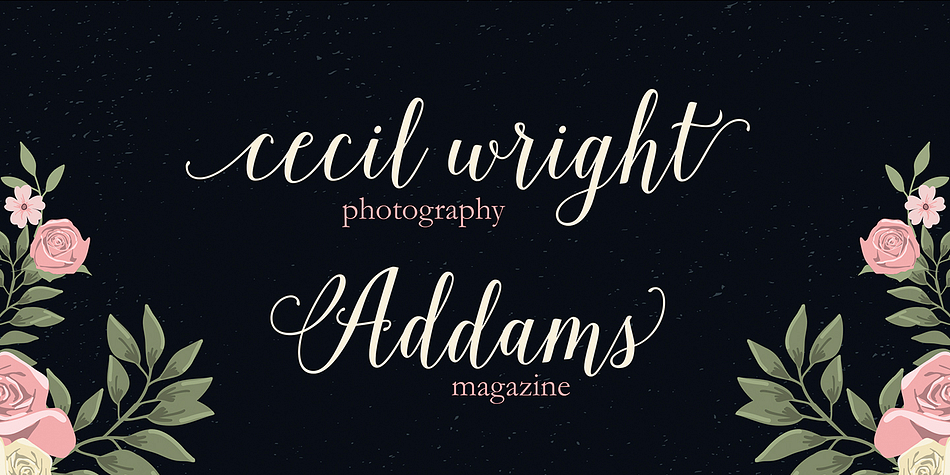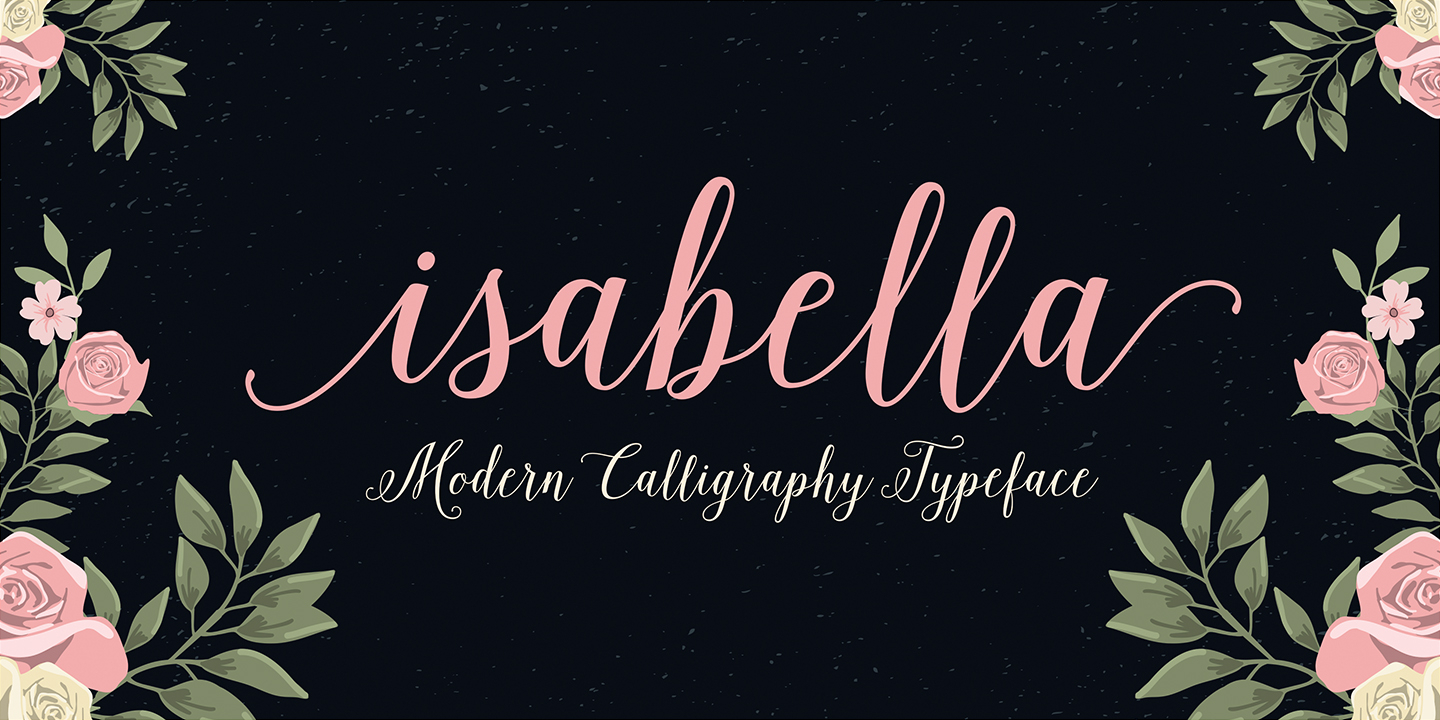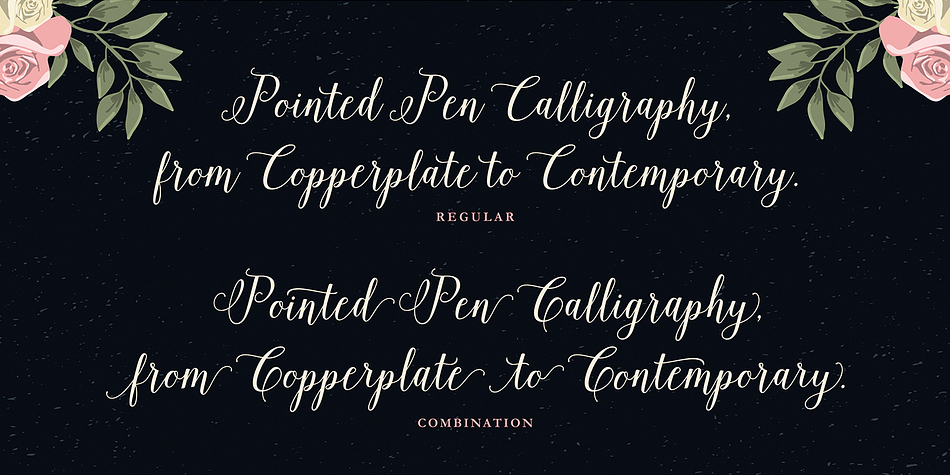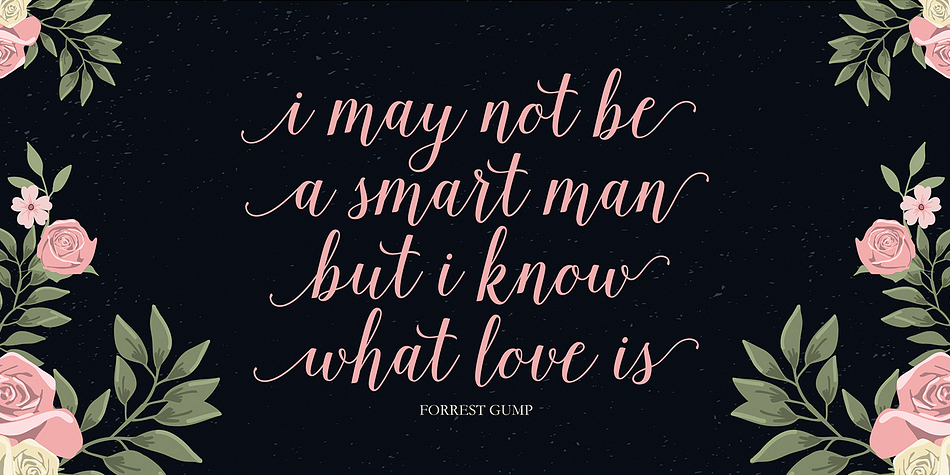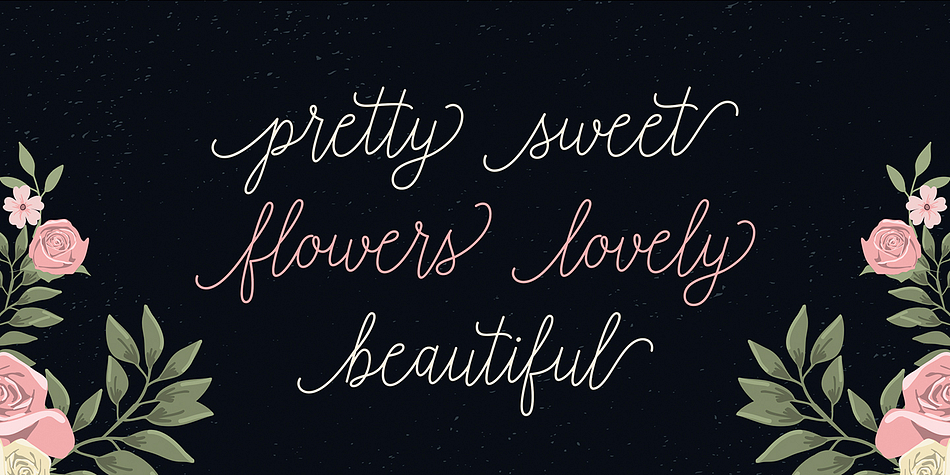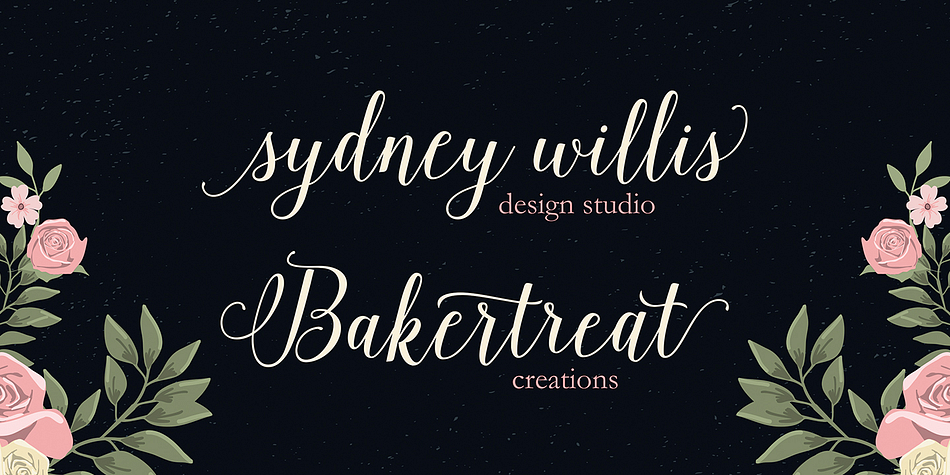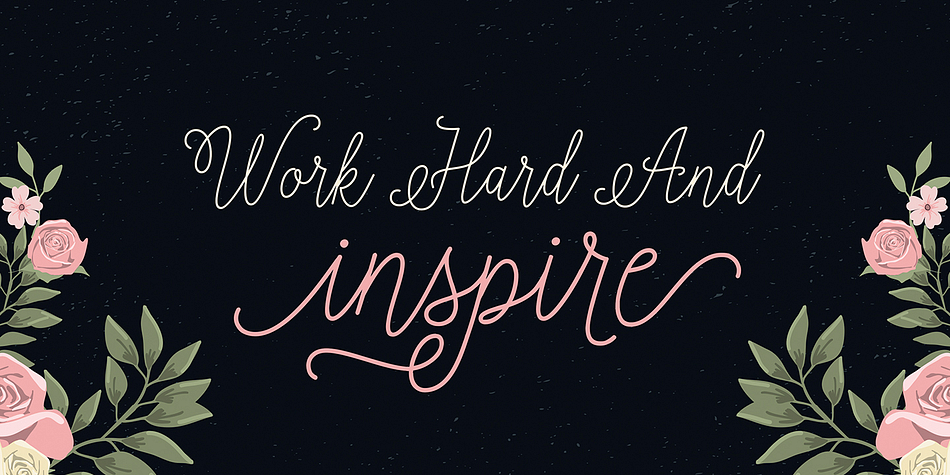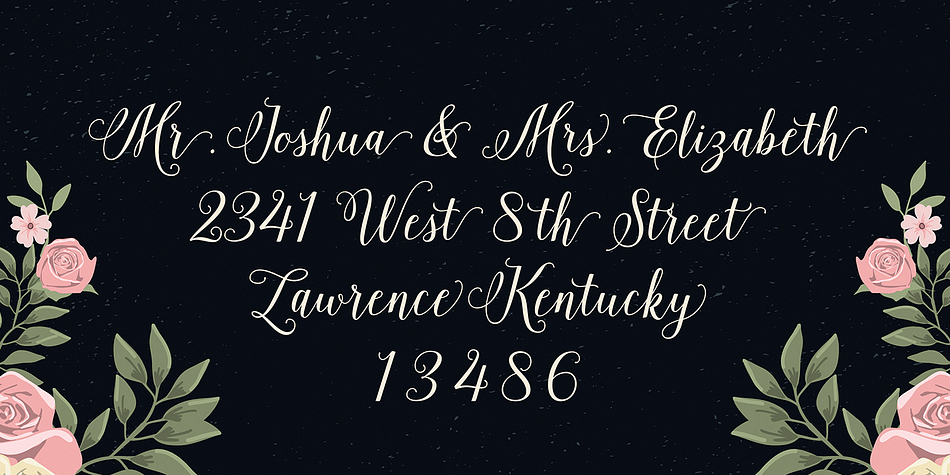
Isabella Script is a modern calligraphy font family. This typeface has two styles and was published by Seniors Studio.
Isabella Script is handwritten stylish copperplate calligraphy fonts, combines from copperplate to contemporary typeface with a dancing baseline, classic and elegant touch.
Can be used for various purposes.such as headings, signature, logos, wedding invitation, t-shirt, letterhead, signage, lable, news, posters, badges etc.
Isabella Script features 420+ glyphs and 169 alternate characters. Including OpenType Stylistic alternates, ligatures and multiple language support.